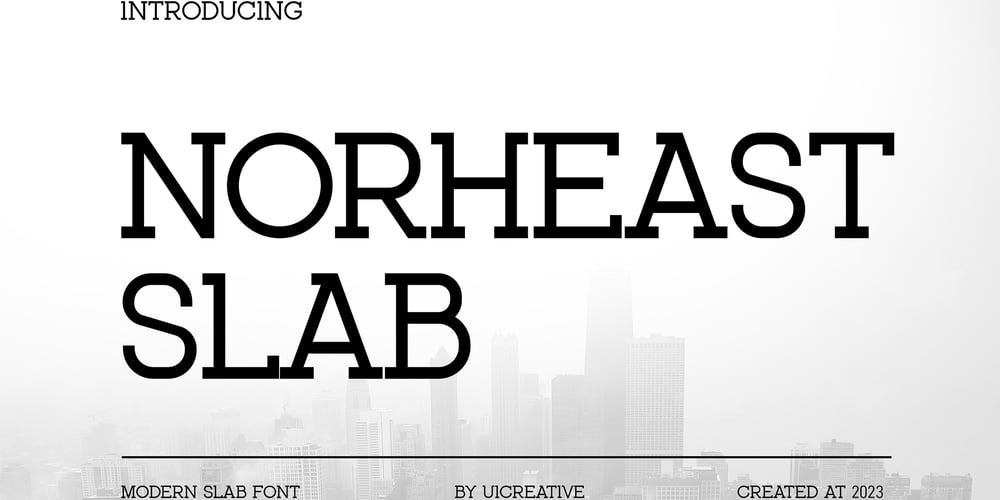
Norheastlab Font Family was designed by Hero and published by UICreative. Norheastlab contains 1 styles and family package options. Introducing our new product the name Norheast Slab Modern Font. Modern Serif font that feels beautiful classy, elegant, and modern. This font is perfectly suited for a wide variety of projects, such as signature, stationery, logo, wedding, typography quotes, magazine or book covers, website headers, clothing, branding, packaging design, and more. Also for fashion-related branding or editorial design and displays both masculine and feminine qualities.